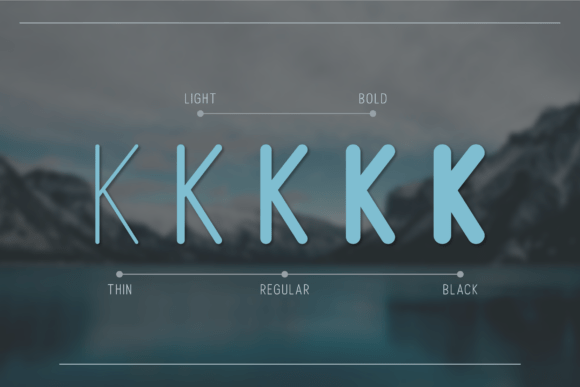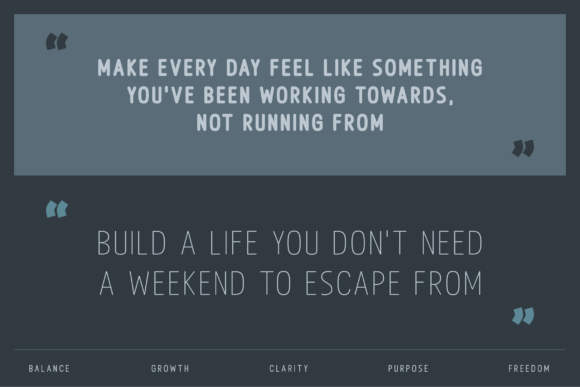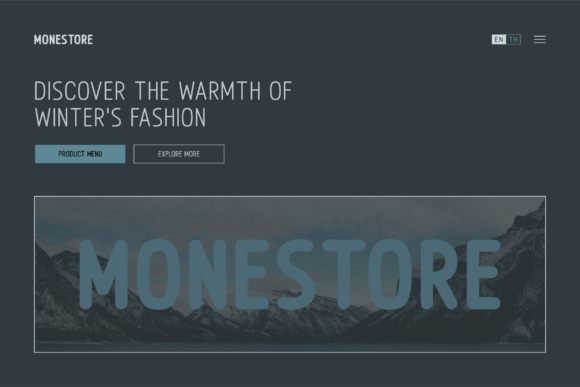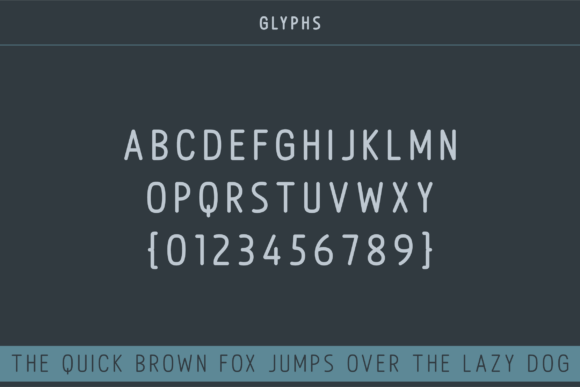
Introduction to Prozephyr Rounded Font
Have you ever stared at a blank design canvas, waiting for that spark of inspiration to strike? The blank page can be intimidating, but sometimes all it takes is the right design resource to bring your creative project to life. For designers, finding the perfect font can be a game-changer. That’s where the Prozephyr Rounded Font comes in – a modern all-caps sans serif font family designed to add a touch of clarity, warmth, and personality to your designs.
With its soft-rounded edges and sleek, geometric construction, the Prozephyr Rounded Font is a high-quality design tool that adapts beautifully to a variety of creative projects. Whether you’re working on a logo, packaging design, or social media visuals, this font family is a valuable asset to have in your design toolkit. And the best part? You can download it for free, complete with a transparent background, making it easy to integrate into your designs.
Key Features of Prozephyr Rounded Font
- High-quality, professional font suitable for a creative project, offering a clean and modern design aesthetic.
- Comes with a transparent background, allowing for seamless integration with any design resource.
- Designed with a rounded style, adding a touch of elegance and sophistication to any design project.
- Features a scalable design, allowing for use in a variety of sizes and resolutions, from small text to large headings.
Honest Review: Prozephyr Rounded Font
As a designer, I’m always on the lookout for high-quality design resources to elevate my creative projects. Recently, I came across the Prozephyr Rounded Font, which caught my attention for its sleek and modern aesthetic. Let’s dive into my honest review.
- ✨ The font’s rounded edges give it a friendly and approachable feel, making it perfect for design projects that require a warm touch.
- ✨ The transparent background option allows for seamless integration with various design elements.
- ⚠️ The font may not be suitable for projects that require a more formal or traditional look.
- ⚠️ The rounded edges may not be ideal for design projects that require sharp or angular lines.
Overall, I’m impressed with the Prozephyr Rounded Font’s design and versatility. While it may not be the perfect fit for every project, it’s a great addition to any designer’s toolkit. If you’re looking for a high-quality, free design resource, the Prozephyr Rounded Font is definitely worth checking out.
Tips for Getting the Most Out of Prozephyr Rounded Font
Experiment with different font sizes and styles to achieve the desired look for your design project. You can also combine the Prozephyr Rounded Font with other design elements to create a unique and creative visual effect.
The Prozephyr Rounded Font is suitable for various design projects, including logos, branding materials, graphics, and text overlays. You can also use it for creating social media graphics, presentations, and documents. With its high-quality design and transparent background, this font is a valuable design resource for any creative project.